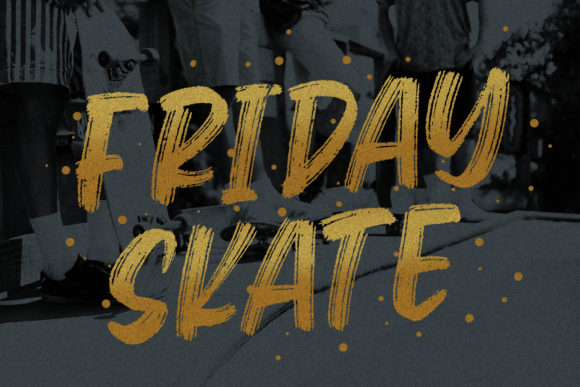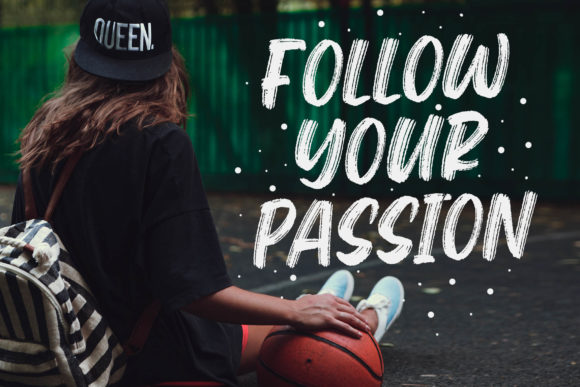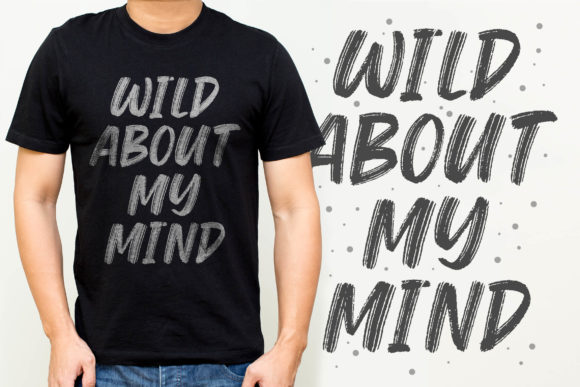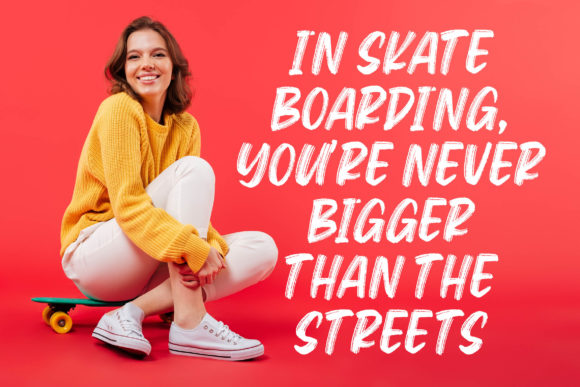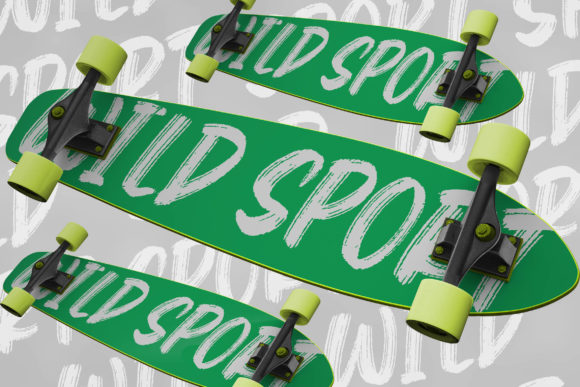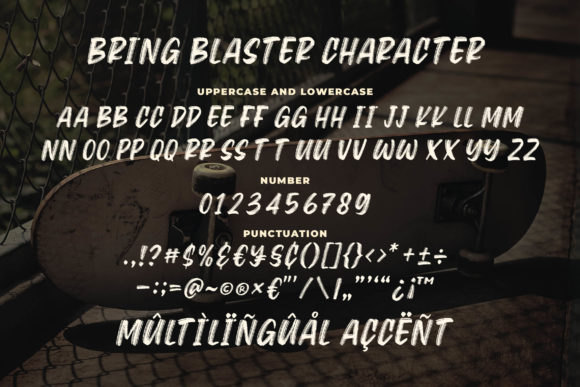
The Ultimate Guide to Bring Blaster Font: Unleashing Creativity in Your Designs
I’ll never forget the time I was working on a branding project for a crafty client, and I just couldn’t find the right font to match their quirky vibe. I scrolled through page after page of Google Fonts, but nothing seemed quite right. That’s when I stumbled upon Bring Blaster, a casual, fun display font that instantly clicked. Created with a brush pen, this font is clean, a little bit quirky, and perfect for logos, branding, social media, and DIY projects.
An Honest Review of Bring Blaster Font
So, what makes Bring Blaster so special? Let’s dive into the good stuff and a few quirks to keep in mind.
What I Love About Bring Blaster ✨
- ✅ Unique, hand-crafted feel: Bring Blaster has a distinct, brush-pen feel that adds a personal touch to any design.
- ✅ Clean and legible: Despite its quirky vibe, this font is surprisingly clean and easy to read.
- ✅ Versatile: Bring Blaster works beautifully for logos, social media graphics, and crafty DIY projects.
- ✅ Easy to pair with other fonts: Its unique style makes it easy to find complementary fonts for your design.
A Few Quirks to Keep in Mind 🤔
- ⚠️ May not be suitable for body text: Bring Blaster is a display font, so it’s best used for headings and titles rather than large blocks of text.
- ⚠️ Limited formal use cases: This font is perfect for creative projects, but may not be the best fit for more formal or corporate designs.
The Story Behind Bring Blaster Font
Bring Blaster was designed with the creative hobbyist in mind. Its creator wanted a font that captured the spirit of DIY crafting and social media creativity. Using a brush pen, they carefully crafted each letter to be both clean and quirky, making it perfect for a wide range of projects.
Q: What type of projects is Bring Blaster best suited for?
Bring Blaster is ideal for logos, branding, social media graphics, and crafty DIY projects. Its unique, hand-crafted feel makes it perfect for creative and informal designs.
Q: Does Bring Blaster support OpenType features?
Yes, Bring Blaster supports OpenType features like ligatures and stylistic alternates. These features can add a lot of character to your text and make your designs stand out.
Q: Can I use Bring Blaster in both digital and print designs?
Absolutely! Bring Blaster is versatile and can be used in both digital designs (like social media graphics) and print designs (like posters, flyers, and craft projects).